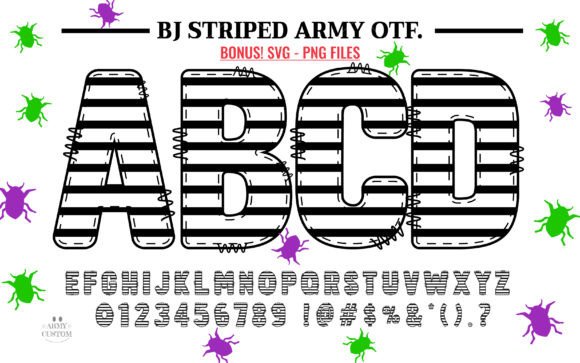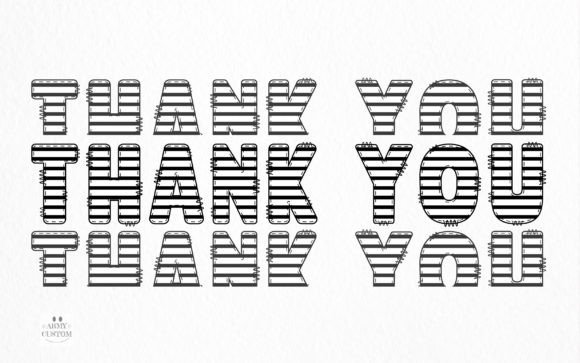
Beetljuice Army Bundle Font
Introducing the spellbinding and distinct Halloween Doodle Font Color that’s sure to add an unmistakable touch of magic to your creations. Ideal for enhancing arts and crafts projects, adding unique charm to scrapbooking endeavors, or infusing personality into stationary and cards. Catch every eye with enchanted blog banners and backgrounds or transform interiors with mesmerizing wall art. This font is truly a vibrant toolkit for all your creative needs, making every product you design a standout piece. Revel in the joy of creation with the Halloween Doodle Font Color.